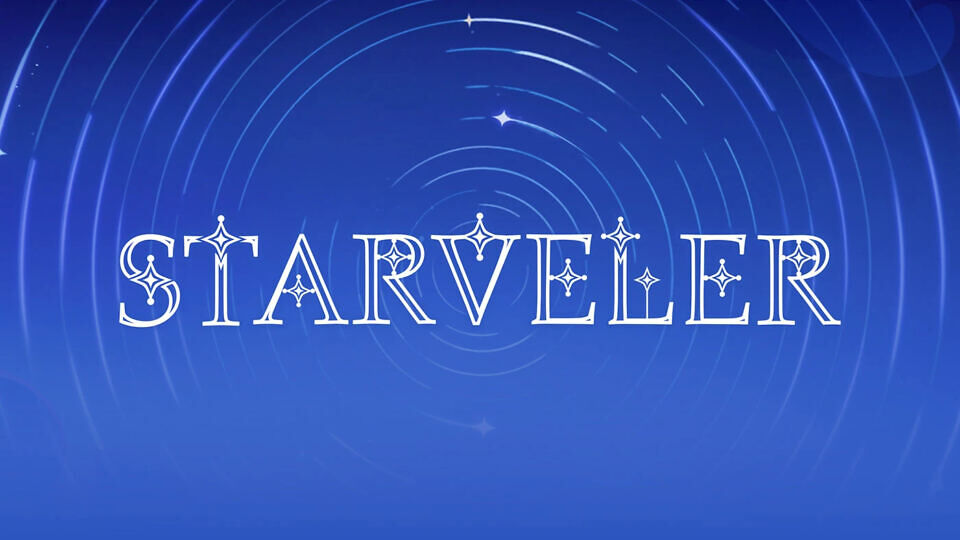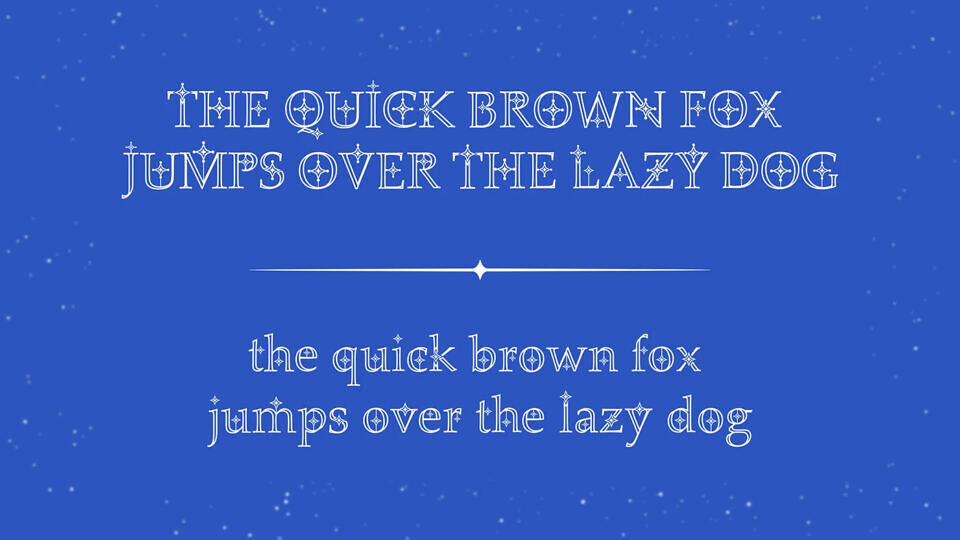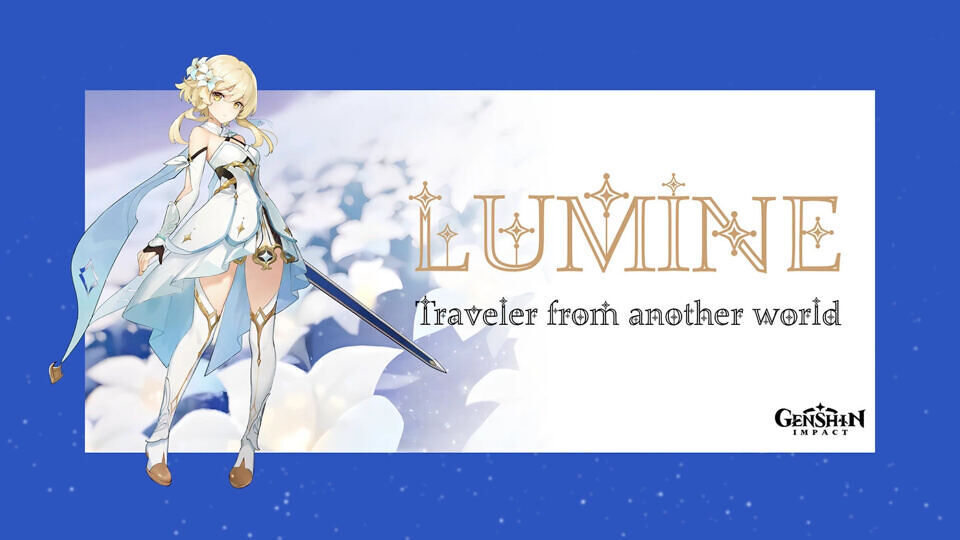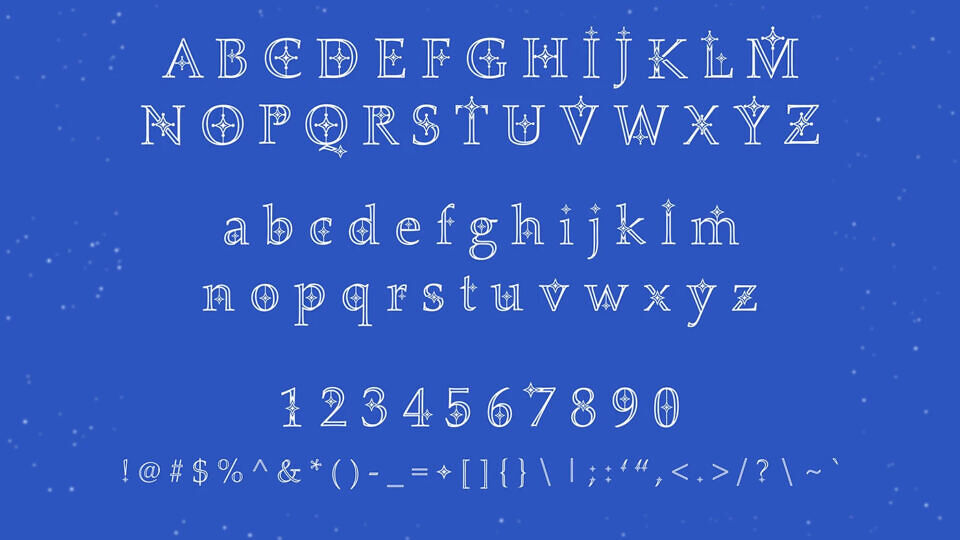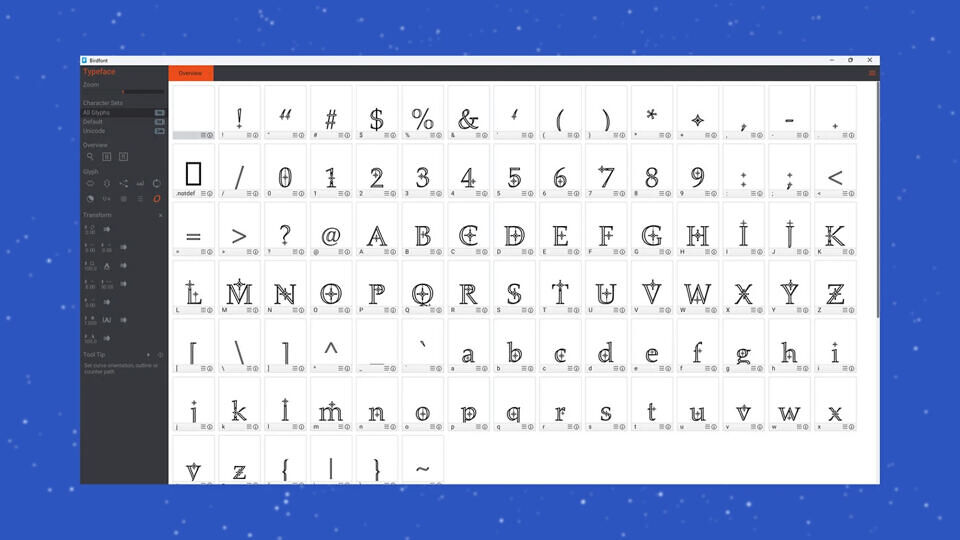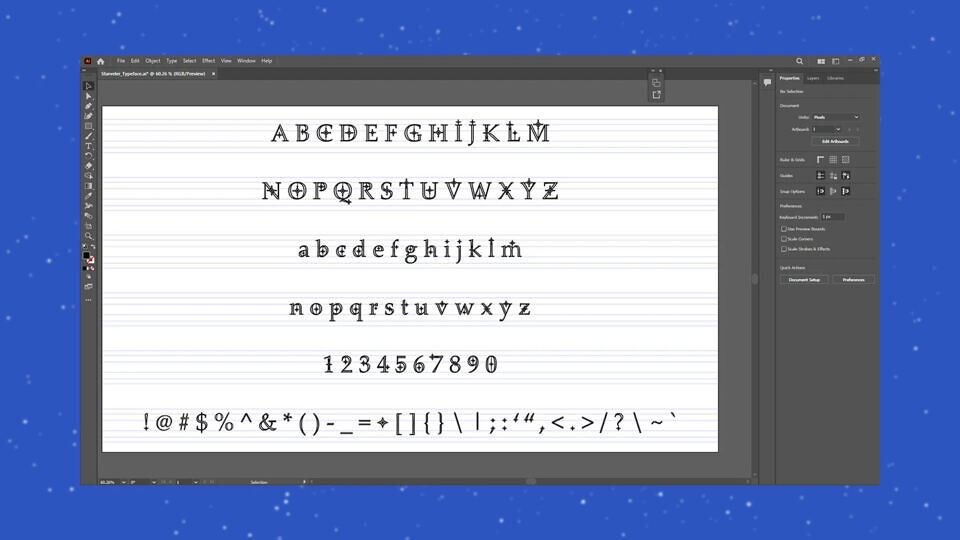
Starveler is a free, fantasy-inspired serif typeface by Aqil Johaimi, capturing the ethereal beauty of the stars. Inspired by Lumine (Genshin Impact), it features celestial details like four-pointed stars, glowing diamond motifs, and comet-tail-like forms within the letterforms.
Based on Palatino Linotype, this elegant, decorative font is perfect for fantasy branding, magical titles, and cosmic design projects